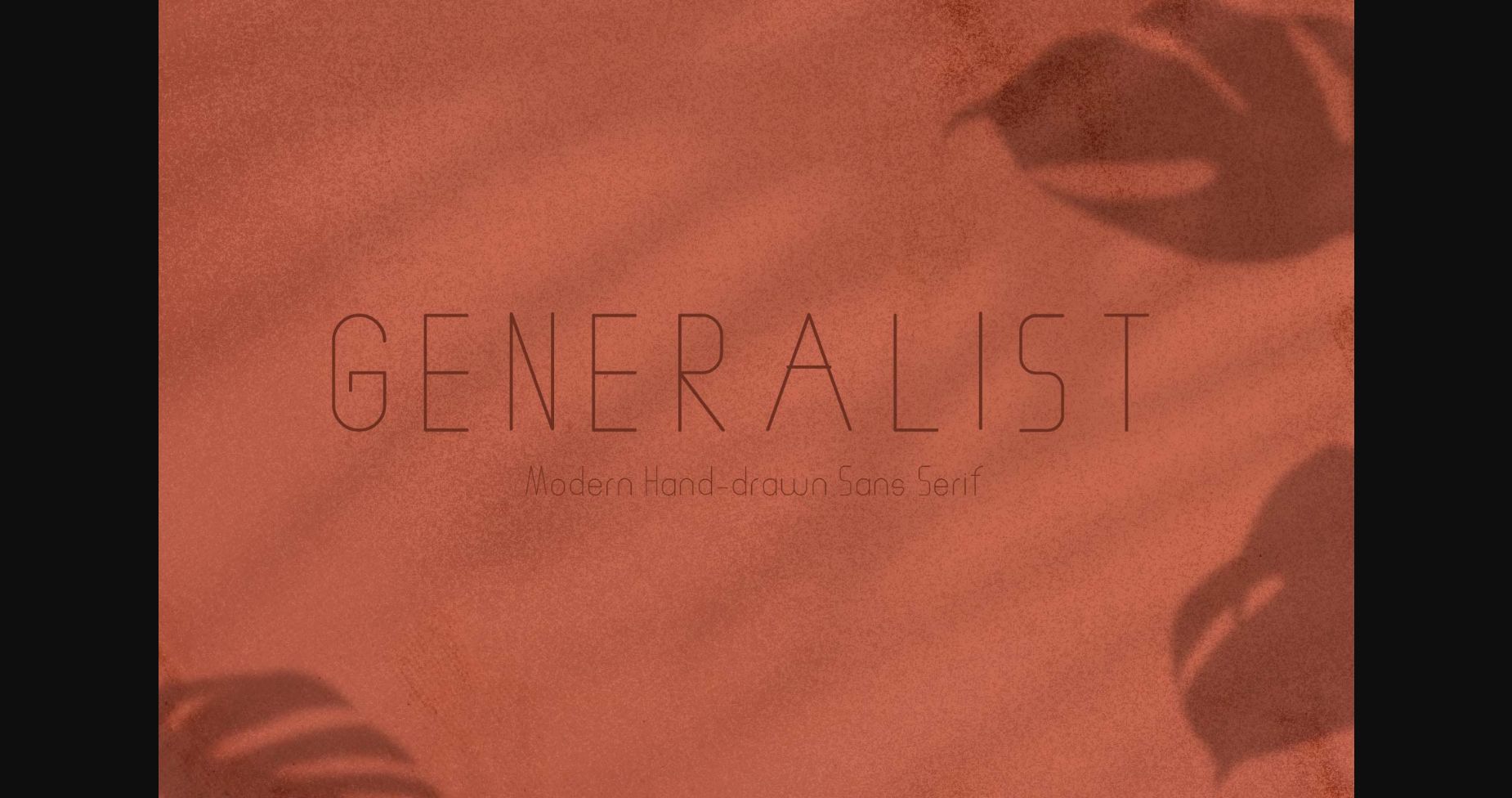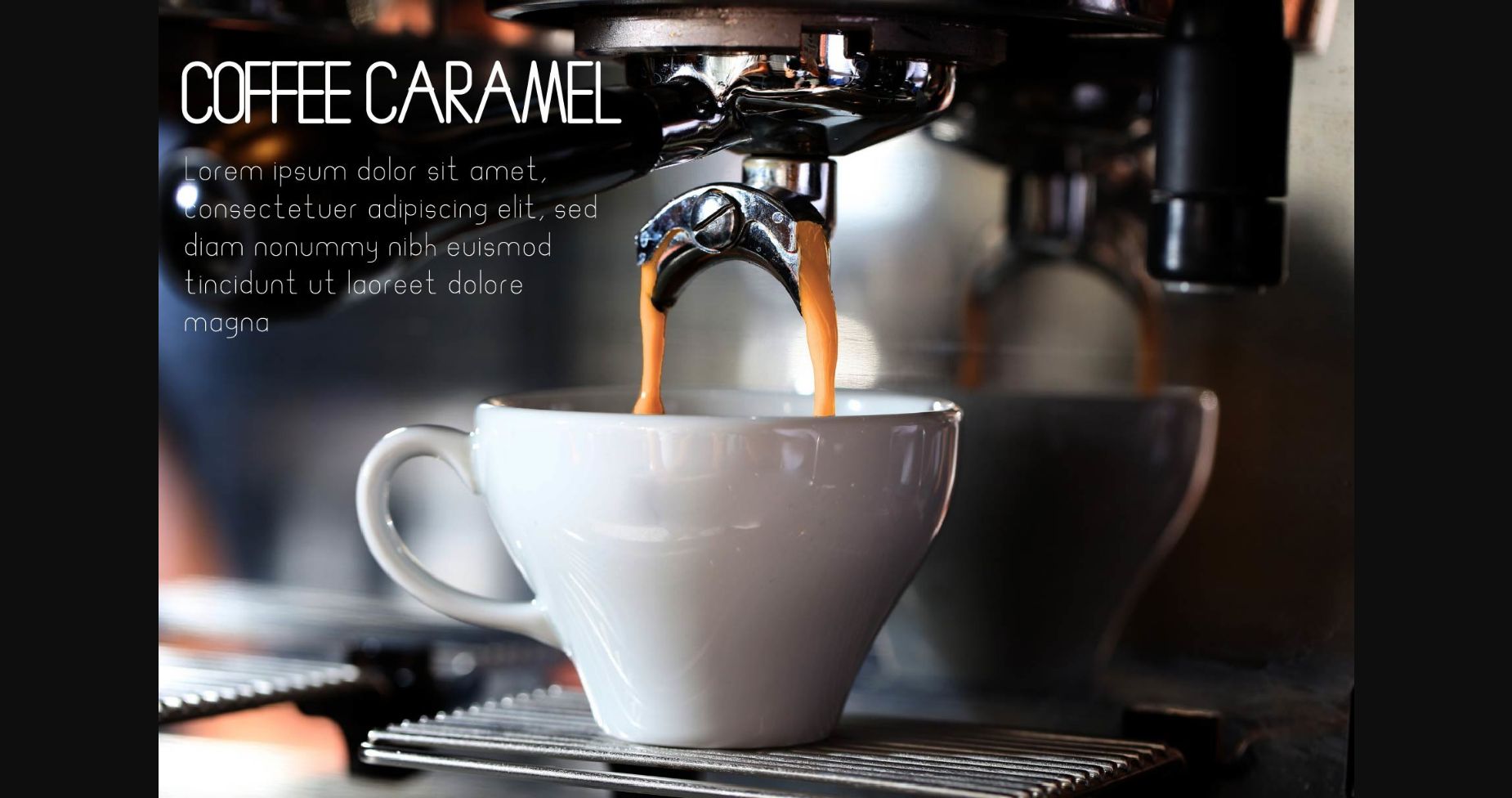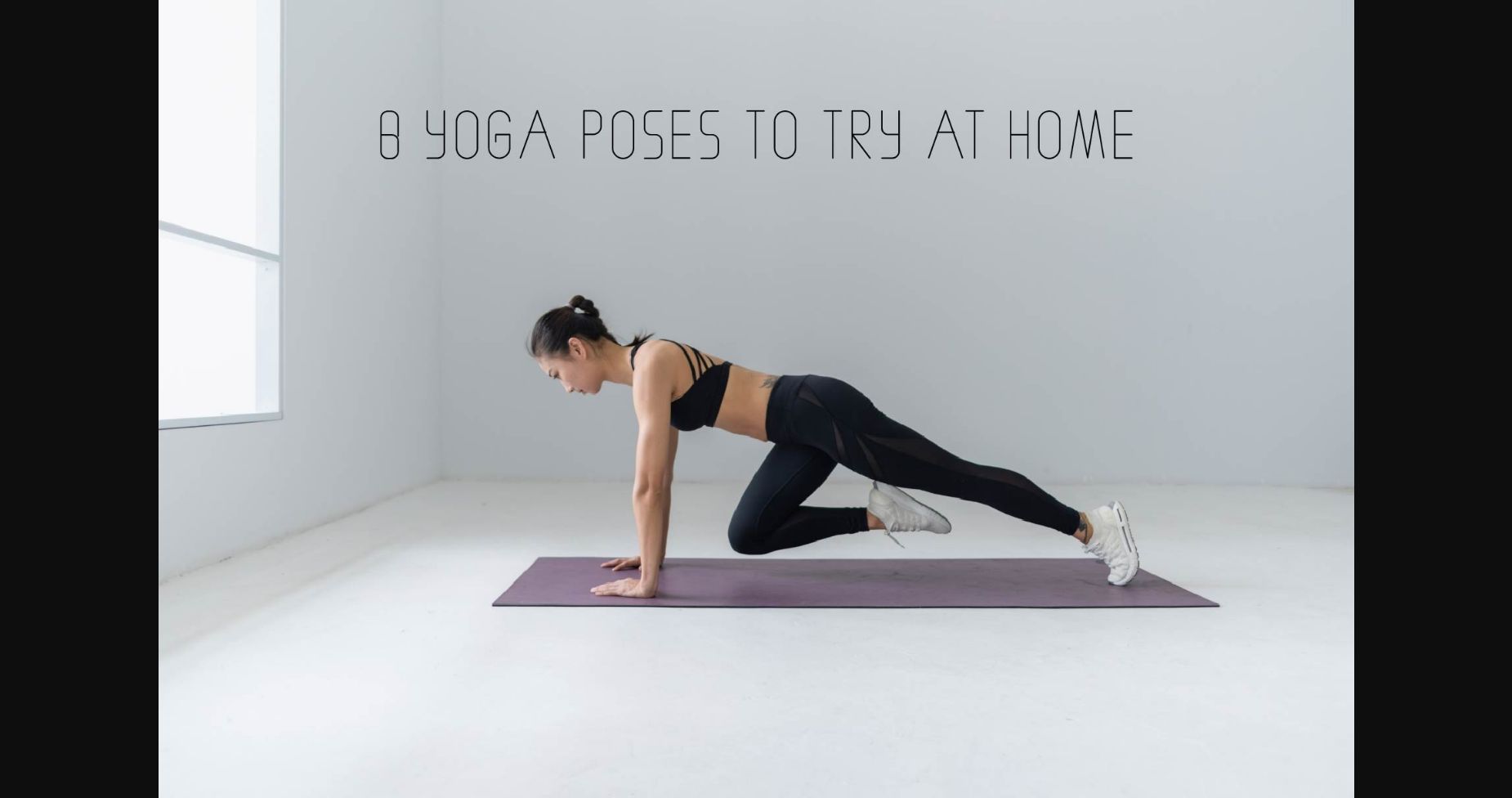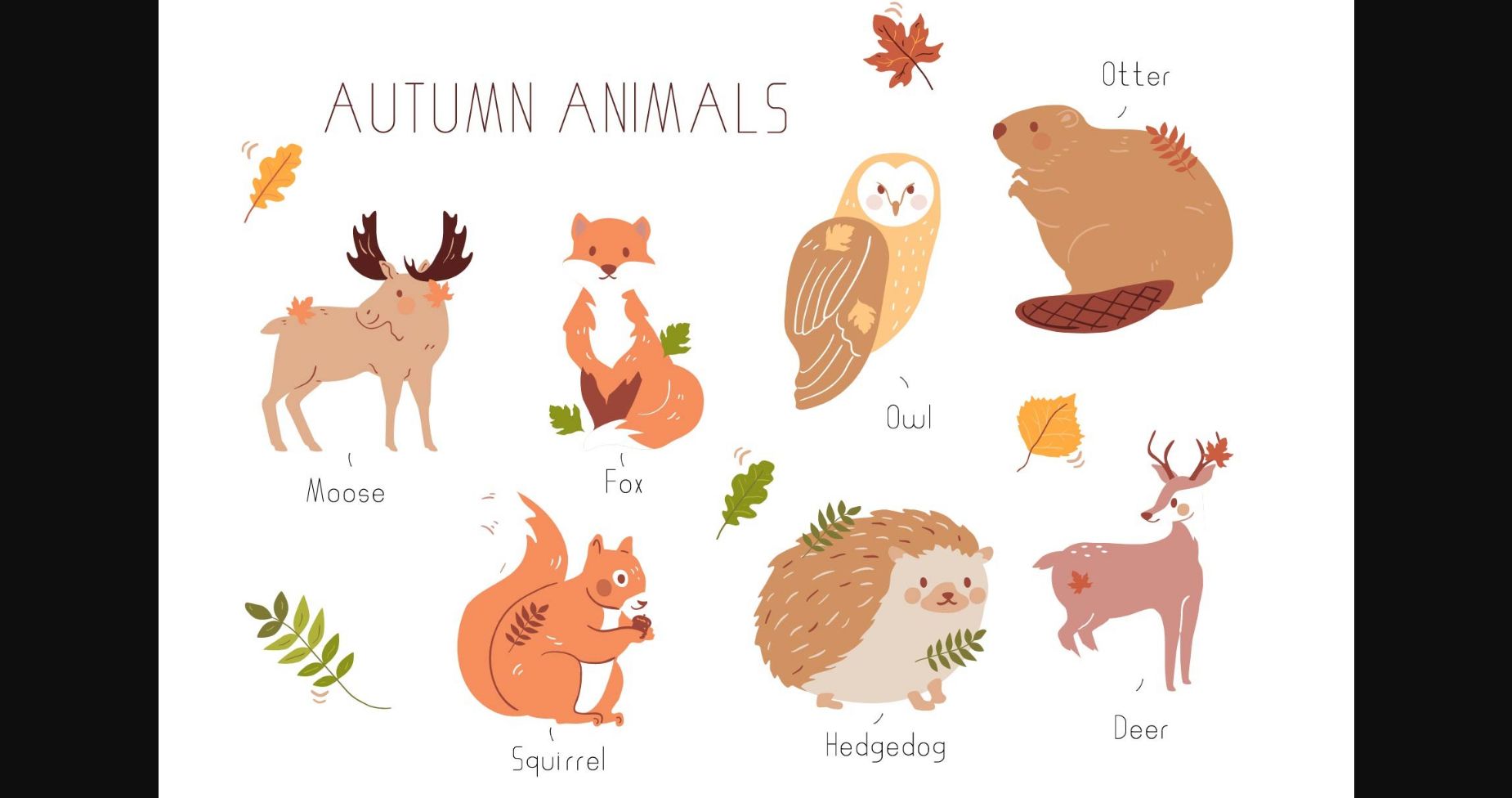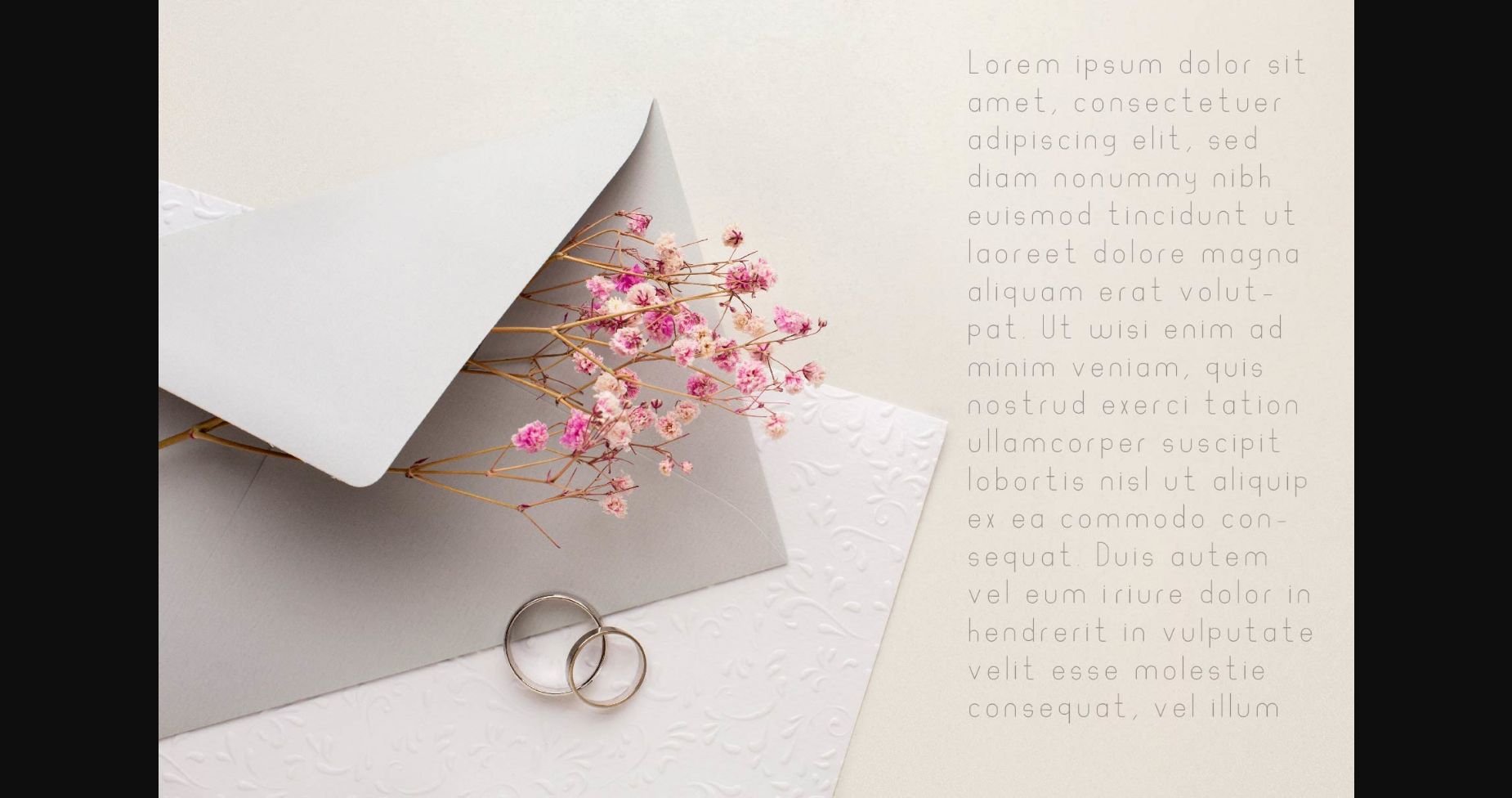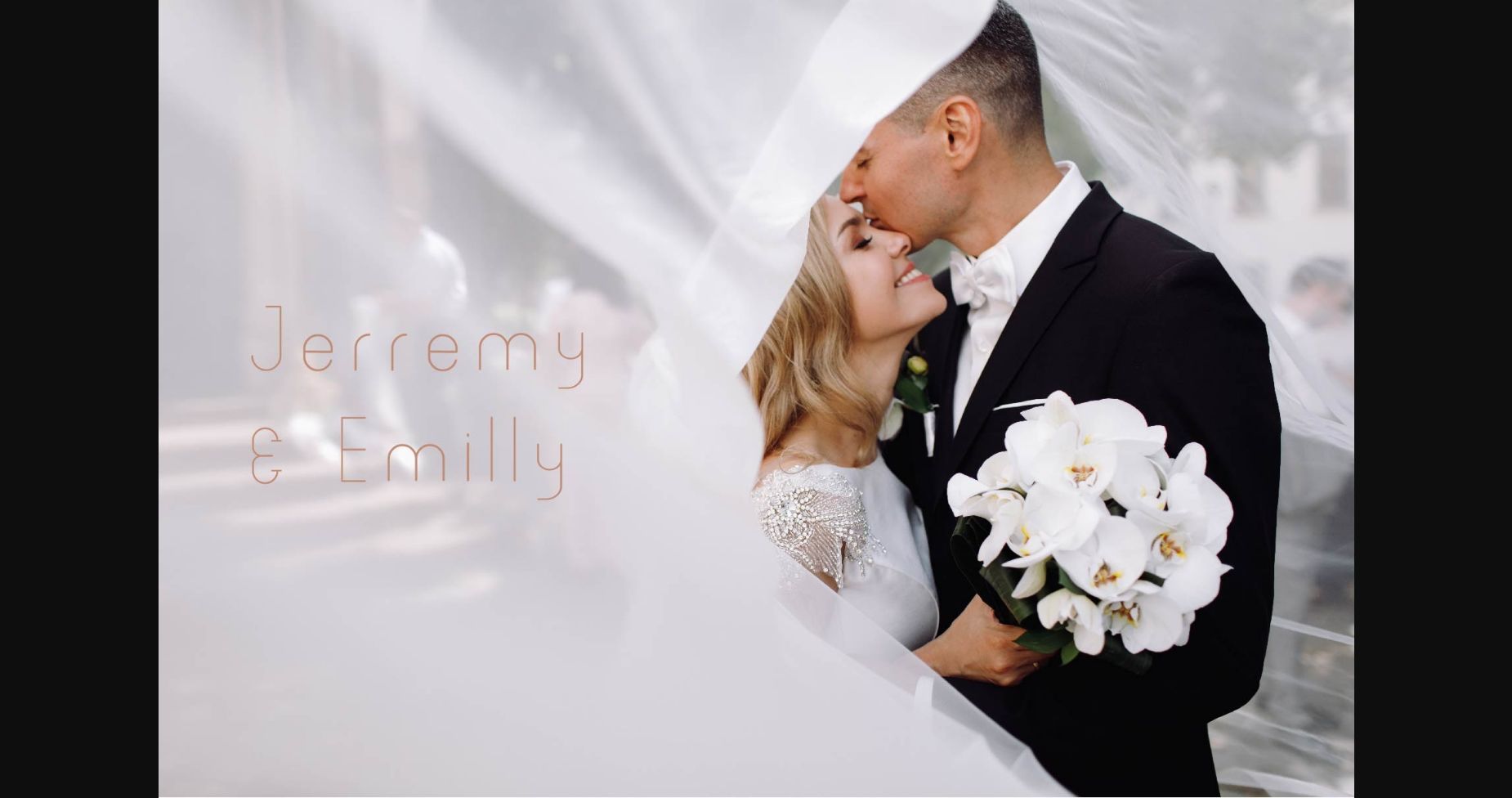
Generalist is a geometric and thin lettered sans serif font. It can easily be matched to an incredibly large set of projects, so add it to your creative ideas and notice how it makes them stand out!